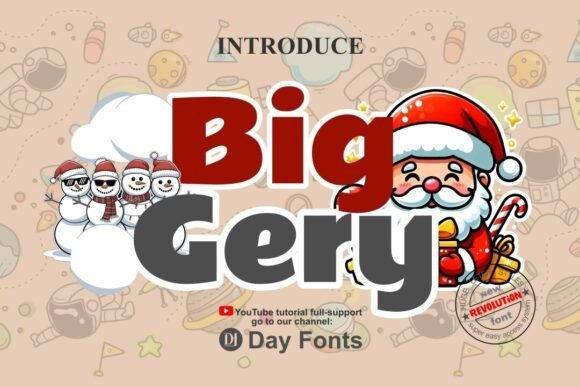
Introduction to Biggery Font
Introducing a charming and personable bold display typeface – endearing to the eye and heart alike.
Embodying a hint of whimsy, this font becomes the perfect companion for crafting stickers, keepsake cards, or any design endeavor requiring a playful touch Dare to evoke delight with this delightful font that artfully marries functionality and flourishes.
Biggery Font offers exceptional quality and versatility, making it a valuable addition to your design toolkit. Whether you’re creating for personal projects or commercial use, Biggery Font delivers professional results.